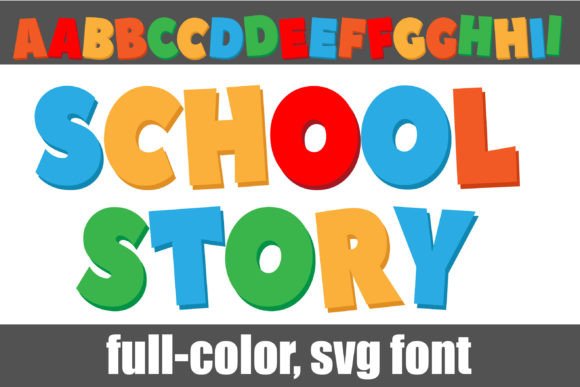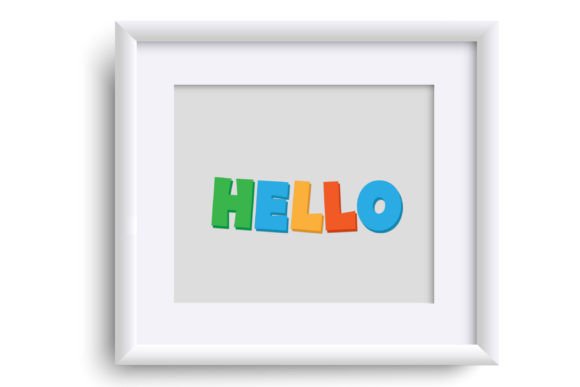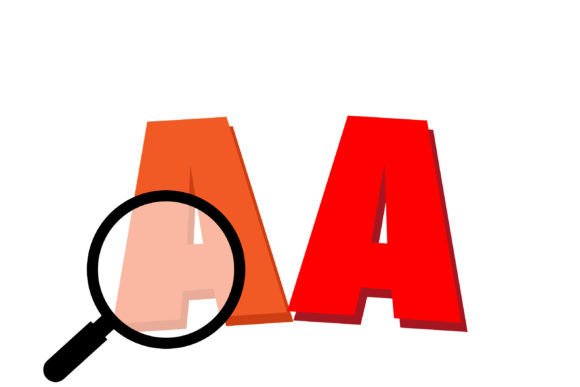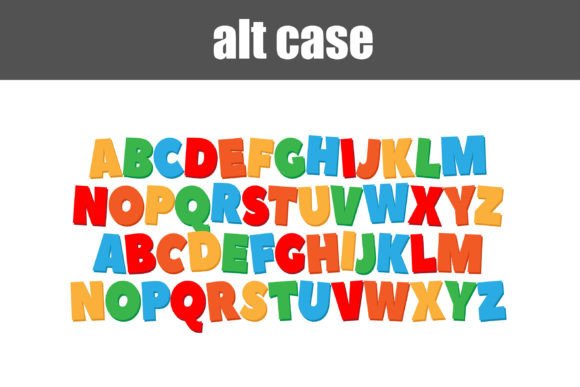
School Story Font
About the School Story Font
Explore the possibilities with School Story Font, a font that offers both beauty and functionality. This full-color font features a blocky sans serif in a primary color palette. There is an alt case with additional colors you can access through your system’s character map. This font works best for titles, displays, posters and more. Please note color fonts will show as black in non compatible programs. This font type is compatible with Silhouette Studio.